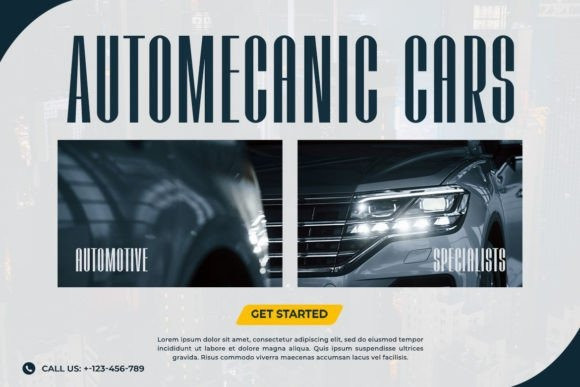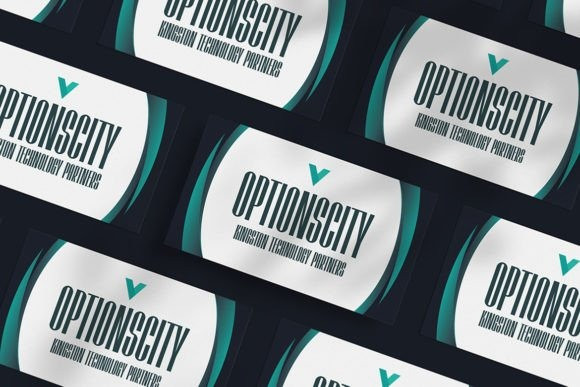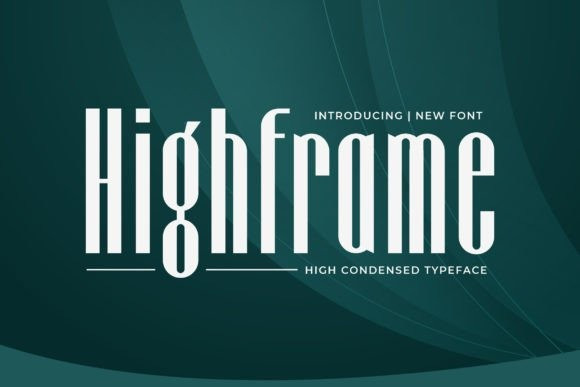
Highframe Font
Highframe Font is a stylish condensed display font that is perfect for your upcoming projects. No matter the topic, this font will be an incredible asset to your fonts’ library, as it has the potential to elevate any creation.